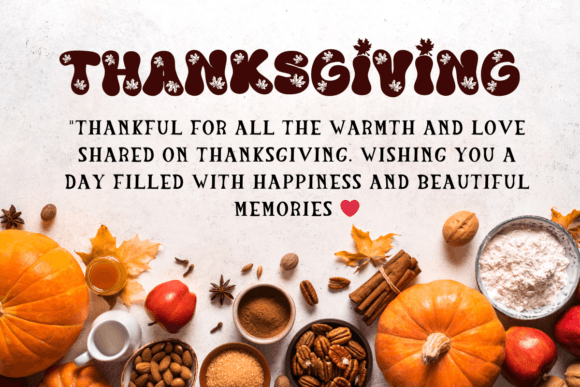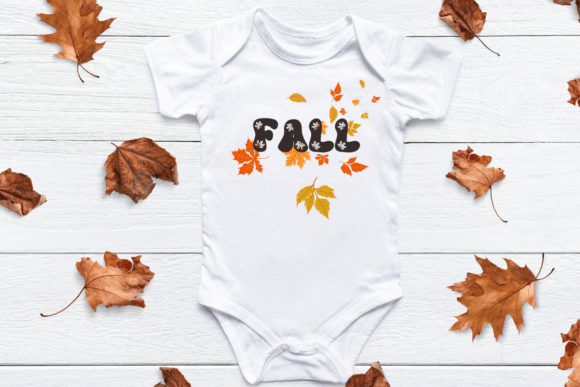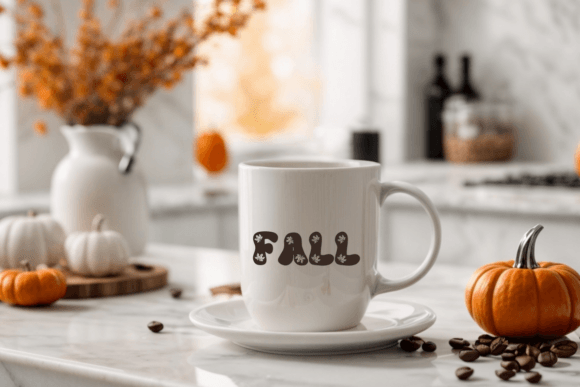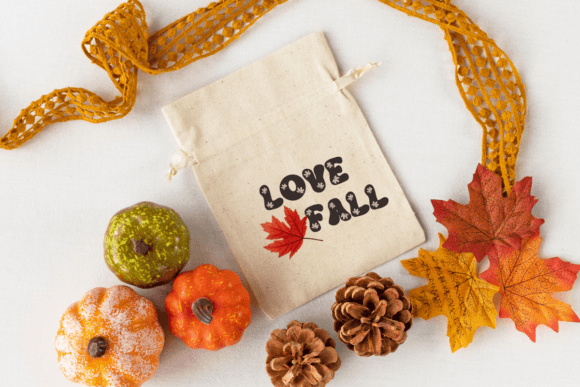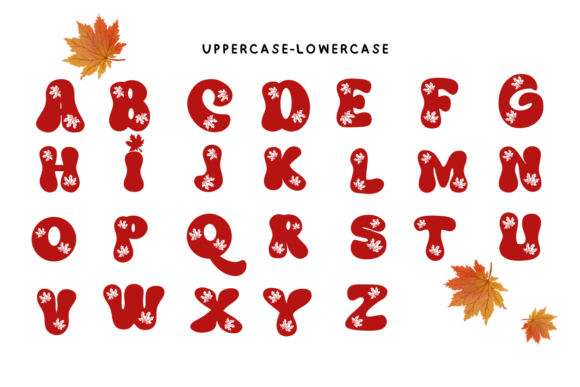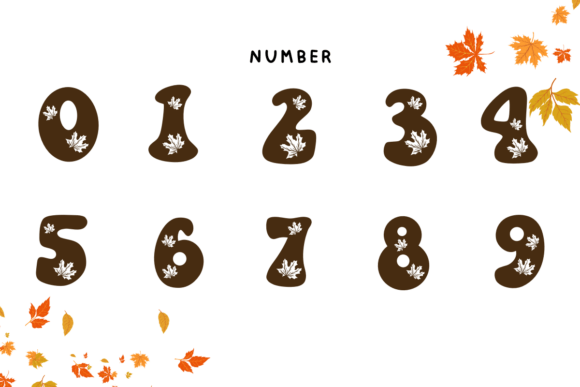
Gratitude in Type
There’s something magical about curling up with a warm cup of coffee on a crisp autumn morning, surrounded by the vibrant hues of fall leaves and the scent of pumpkin spice wafting through the air. It’s the perfect moment to get creative and give thanks for the little things – like the perfect font to capture the essence of the season.
Enter the Fall Thanksgiving Font, a stunning decorative font that embodies the warmth and coziness of the fall season. Whether you’re designing a holiday card, a social media post, or a festive graphic, this font is sure to elevate your creations and make them feel truly special. Its unique blend of elegance and playfulness makes it a valuable asset to any designer’s library.
Fall Thanksgiving Font Key Features
- Font Style: A unique, handwritten font with a fall theme, perfect for Thanksgiving and autumn-related designs.
- Unique Characteristics: The font features intricate, hand-drawn elements, including leaves, acorns, and other fall-inspired motifs, adding a touch of warmth and coziness to designs.
Designer Review: Fall Thanksgiving Font
Overall, I was excited to dive into the Fall Thanksgiving Font, but my experience was a mixed bag. Let’s break it down!
- The font’s warm and inviting tone perfectly captures the essence of the fall season. It’s perfect for projects centered around Thanksgiving, harvest, or autumnal themes.
- The font is highly legible, even at smaller font sizes, making it ideal for digital projects like social media graphics, invitations, or flyers.
- The font comes in a range of weights and styles, giving users plenty of options to customize their designs and create a cohesive look.
- The font may be too seasonal, limiting its use to a specific time of year. This might make it less versatile for designers looking for a font that can be used year-round.
- The font’s design, while beautiful, might not appeal to those who prefer a more modern or minimalist aesthetic.
- The font could benefit from additional characters, such as international symbols or emojis, to make it more useful for a wider range of projects.
While the Fall Thanksgiving Font has its limitations, its warm and inviting tone makes it a great choice for projects centered around the fall season. With a little creativity, designers can use this font to create stunning and cohesive designs that capture the essence of the season. However, its limited versatility and design might make it less appealing to those with more modern or minimalist tastes.
The Fall Thanksgiving Font is perfect for:
- Creating holiday-themed invitations and announcements.
- Designing fall-themed menus and brochures.
- Developing social media graphics and ads.
Font1: Great Vibes
Great Vibes is a beautiful script font that is perfect for creating a warm and inviting atmosphere. It is ideal for designs that require a touch of elegance and sophistication. Great Vibes is a great alternative to Fall Thanksgiving Font as it has a similar handwritten feel, but with a more refined and polished look.
Font2: Lobster
Lobster is a fun and playful font that is great for creating a festive and celebratory atmosphere. It is perfect for designs that require a bold and eye-catching look. Lobster is a great alternative to Fall Thanksgiving Font as it has a similar playful feel, but with a more casual and laid-back vibe.